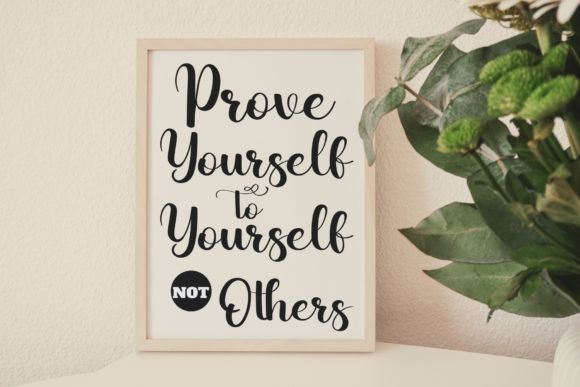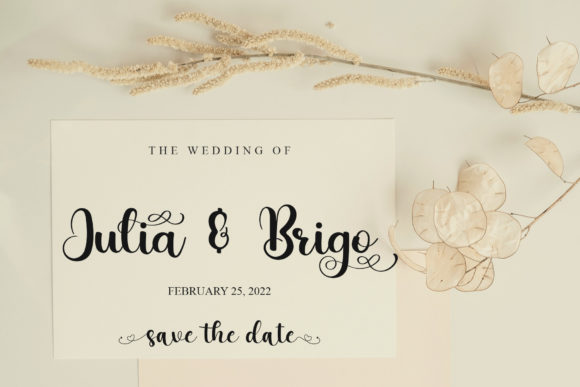
About Amazing Valentine Font
Amazing Valentine is a romantic and sweet calligraphy typeface with characters that dance along the baseline. It will add a luxury spark to any design project that you wish to create! This font is PUA encoded which means you can access all of the amazing glyphs and ligatures with ease!